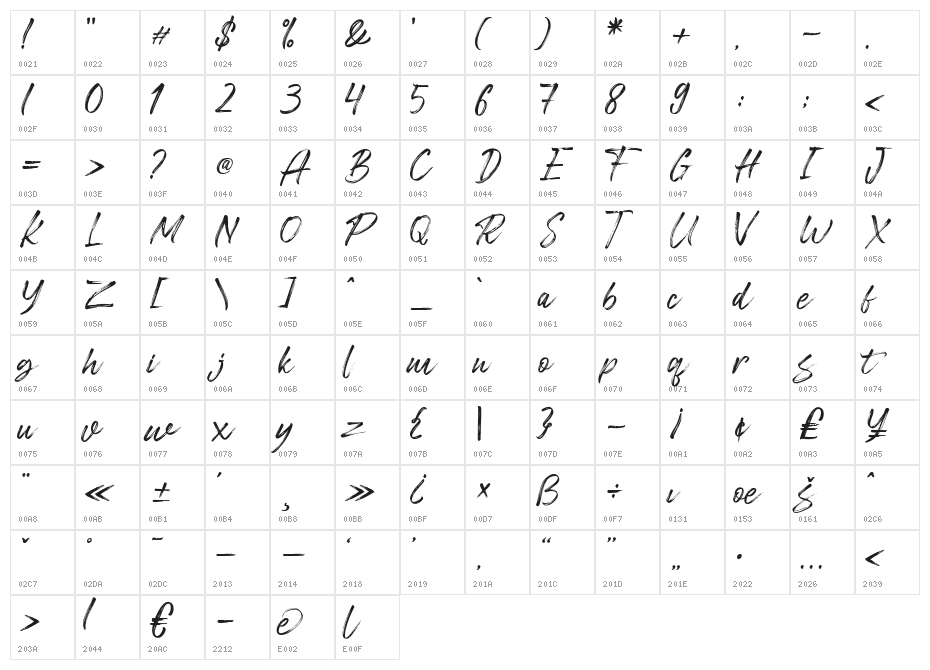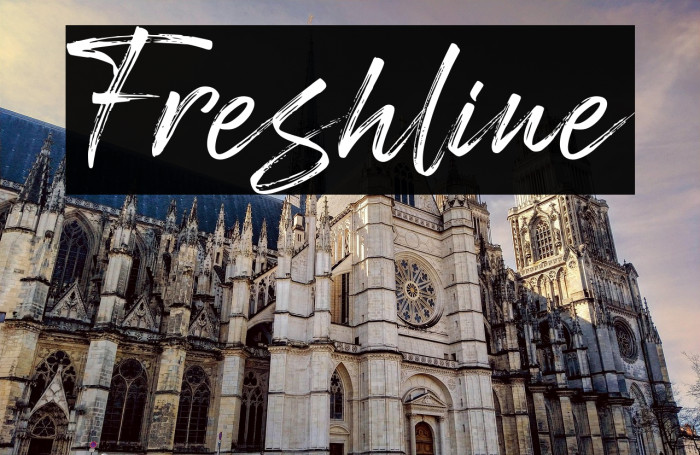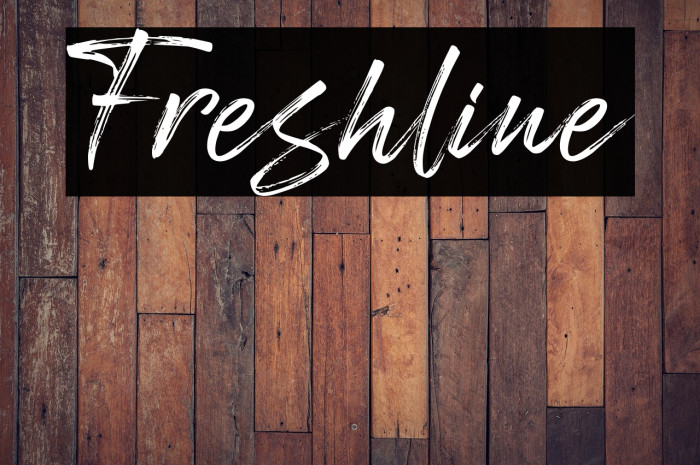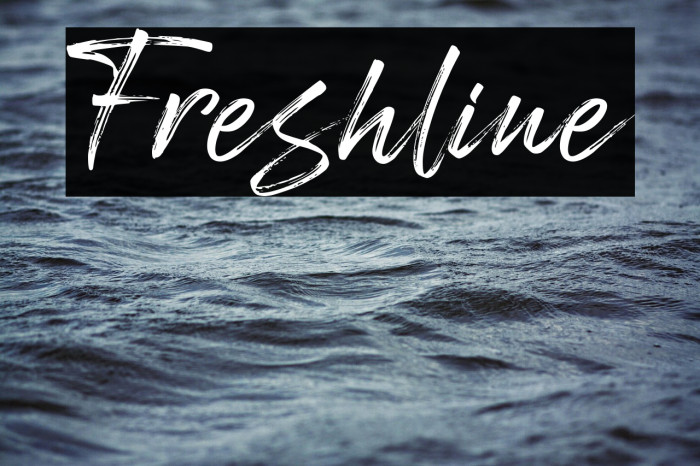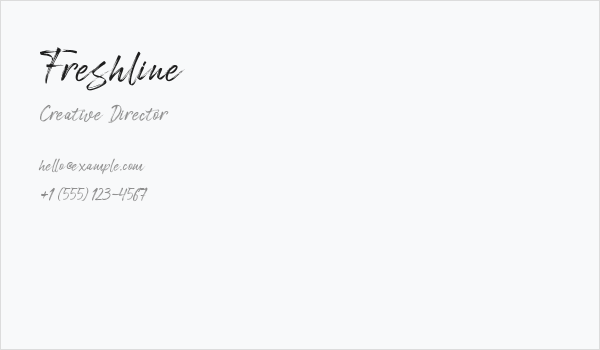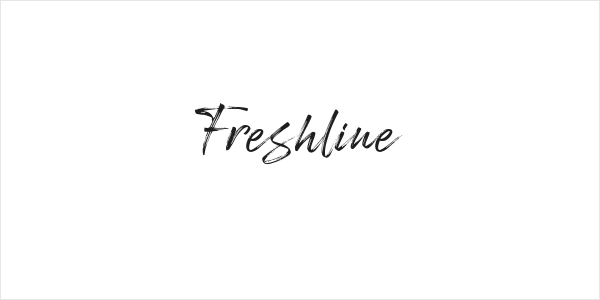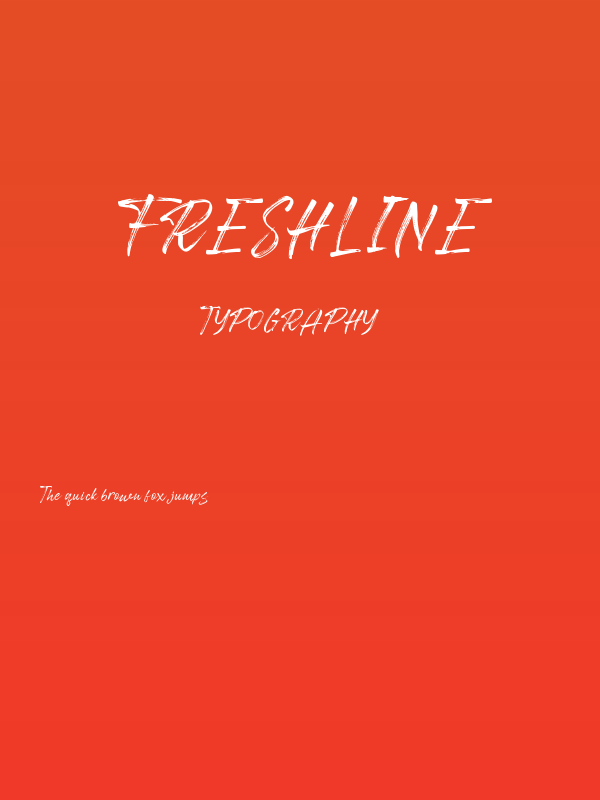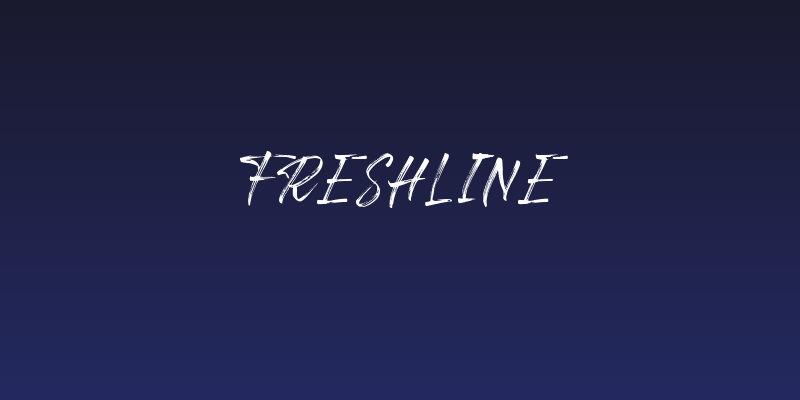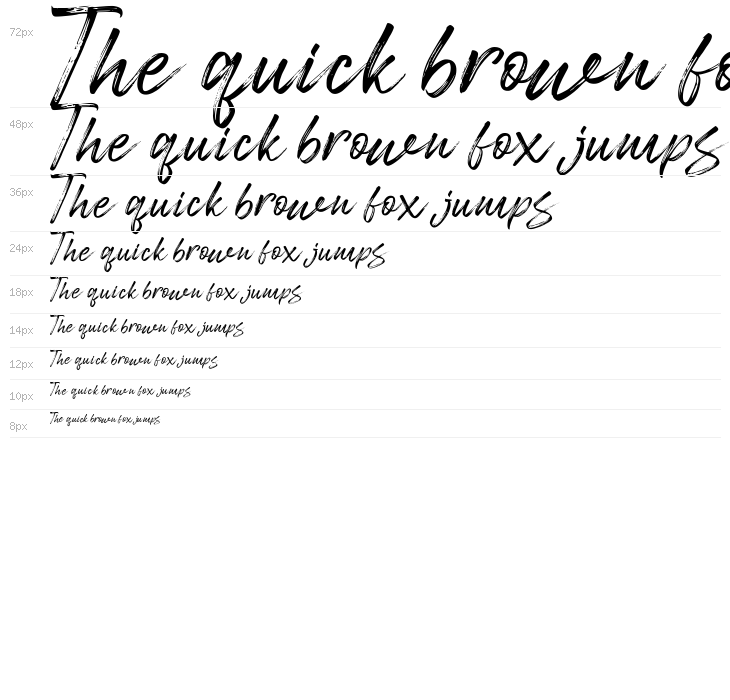
Freshline Font
Freshline Description
This font features a dynamic and energetic script style, characterized by its fluid, brush-like strokes and a sense of movement. The uppercase letters are bold and expressive, with varying stroke widths that add a lively rhythm to the text. The lowercase letters maintain a cohesive flow, complementing the uppercase with their slightly more restrained yet equally vibrant appearance. Numbers and special characters follow the same energetic style, ensuring consistency across all text elements. This font's hand-drawn aesthetic gives it a personal and artistic touch, making it ideal for creative projects.
Use CaseLogos, Headlines, Invitations
Proposed ProjectsIdeal for branding, invitations, posters, and artistic projects requiring a personal touch.